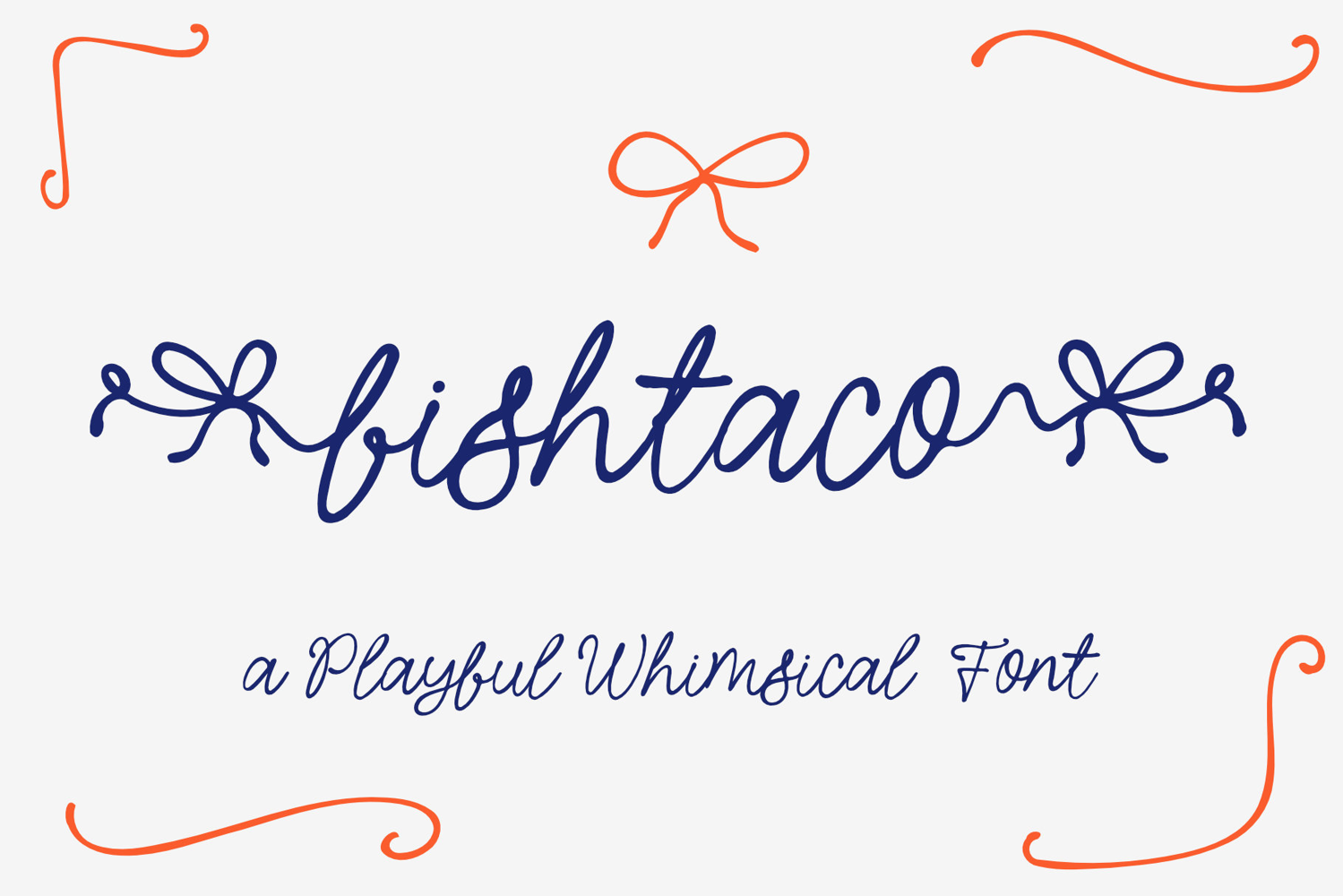
Fishtaco Script - Whimsical Font
Fishtaco Font, a whimsical handwritten wedding script font with the addition of a circular beginning and ending character, and a touch of quirky natural flow, is incredibly versatile and can be used for a variety of designs that require a whimsical handwritten touch!
Fishtaco Font is perfect for whimsical wedding invitations, playful art prints, trendy art prints, greeting cards, unique prints, website themes, branding, logos, and much more.